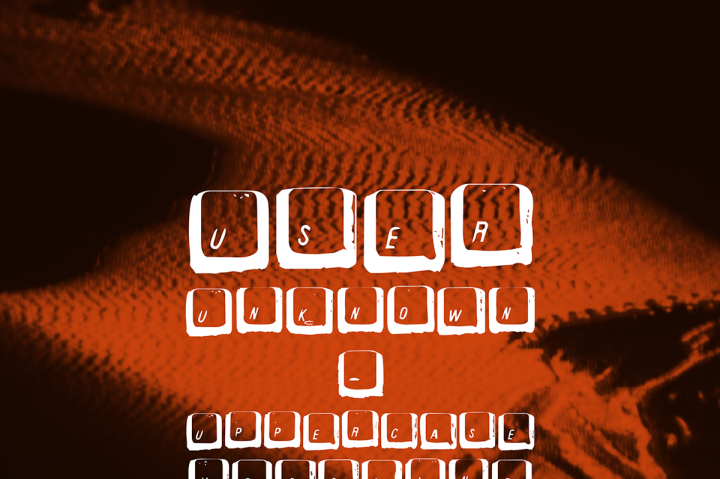
Free User Unknown Typeface
Featuring the amazing free user unknown typeface. The Hungry JPEG has created this amazing and beautiful font. You can create a professional designs with this fancy font.